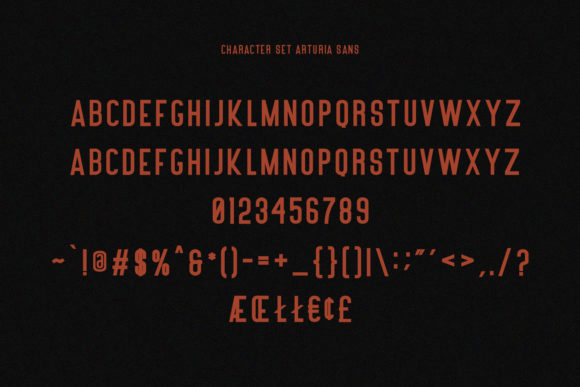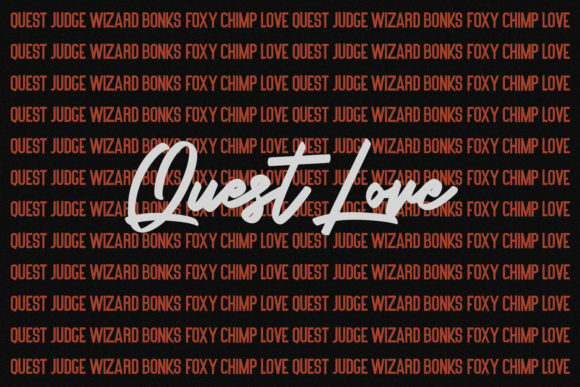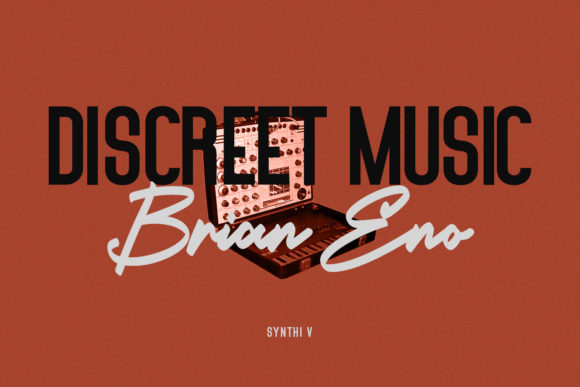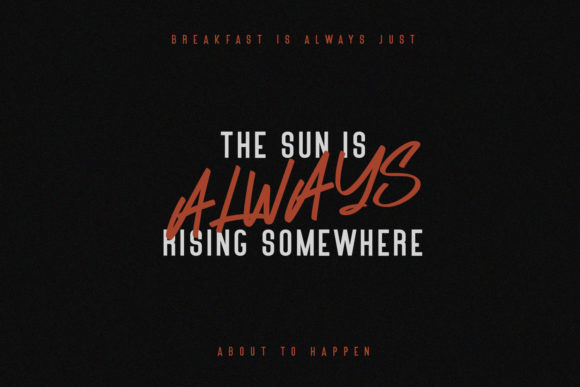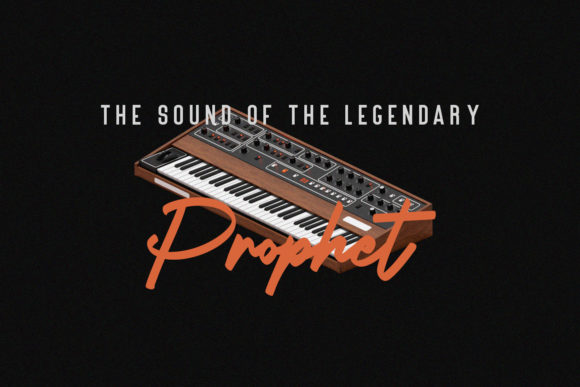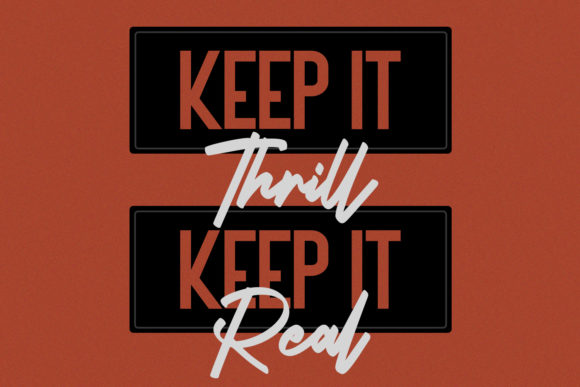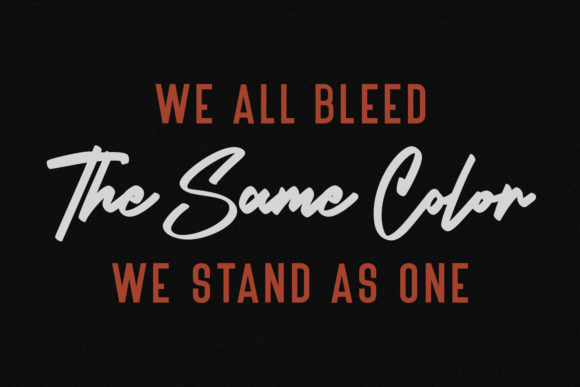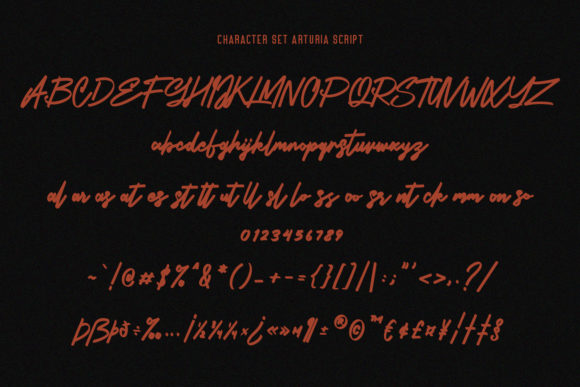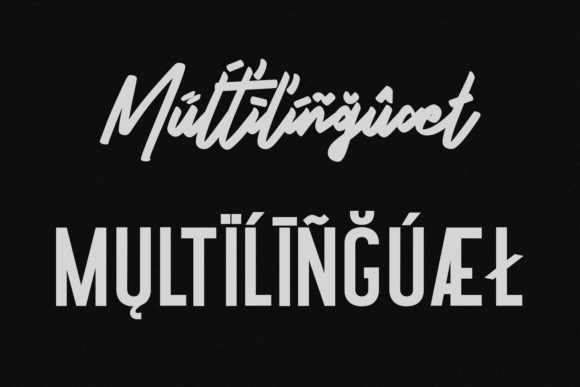
Arturia Script Font
About Arturia Script Font
Arturia Script is a beautiful duo font (handwritten and sans). Incredibly versatile, this font fits a wide pool of designs, elevating them to the highest levels. Add this font to your favorite creative ideas and notice how it makes them come alive!